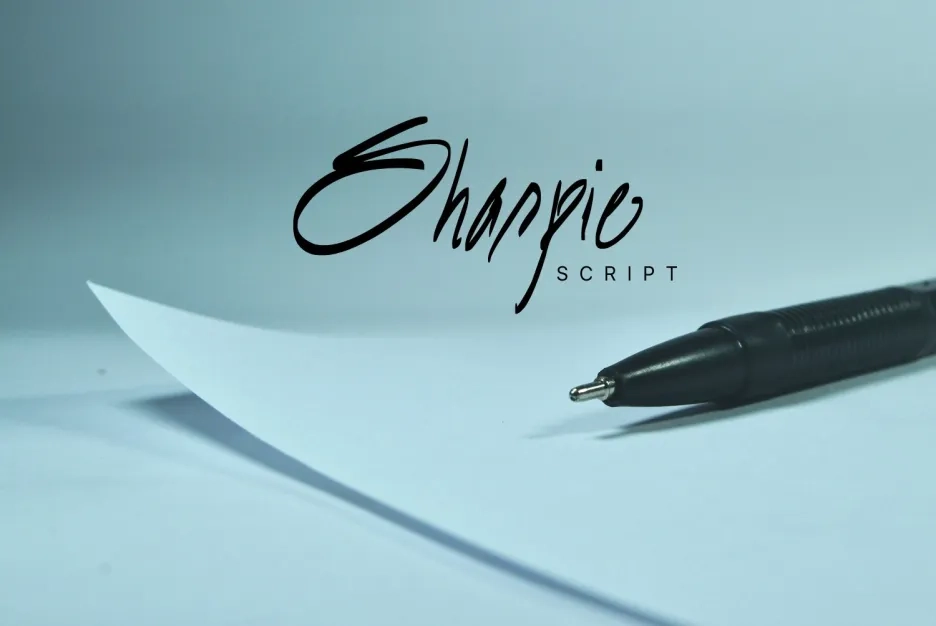
Sharpie Font
The Sharpie Font is a unique handwritten typeface that captures the essence of casual, spontaneous writing. With its bold strokes and playful curves, this font is perfect for projects that require a personal touch.
• Handwritten style with a natural flow
• Multiple weights available for versatility
• Includes uppercase and lowercase letters, numbers, and punctuation
• Weight: Regular, Bold
This font is ideal for branding, logos, web design, and print materials. Its friendly appearance makes it suitable for invitations, greeting cards, and casual marketing materials.